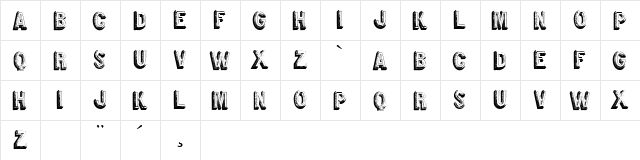
Retro sign Regular
Design Context for Retro sign Typeface
Retro sign wears its vintage influences proudly, with letterforms that recall mid-century signage, classic packaging, and nostalgia-driven design.
Font Pairing: Combine Retro sign with a simple slab or neutral sans — period-accurate companions reinforce the vintage feel without competing for attention.
Pro Tip: Use Retro sign for headlines and pull quotes rather than body copy — its personality is best appreciated in short, focused bursts.